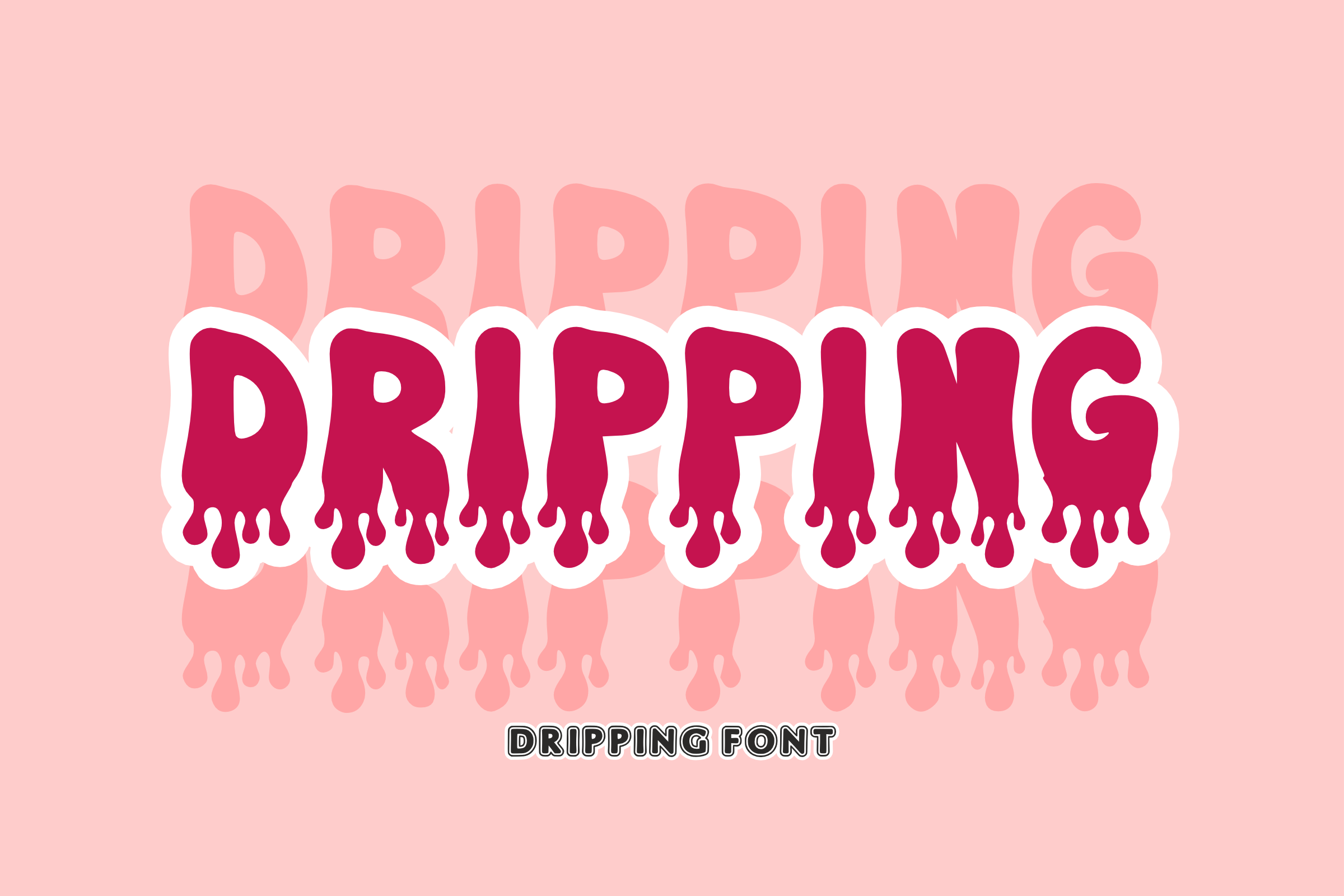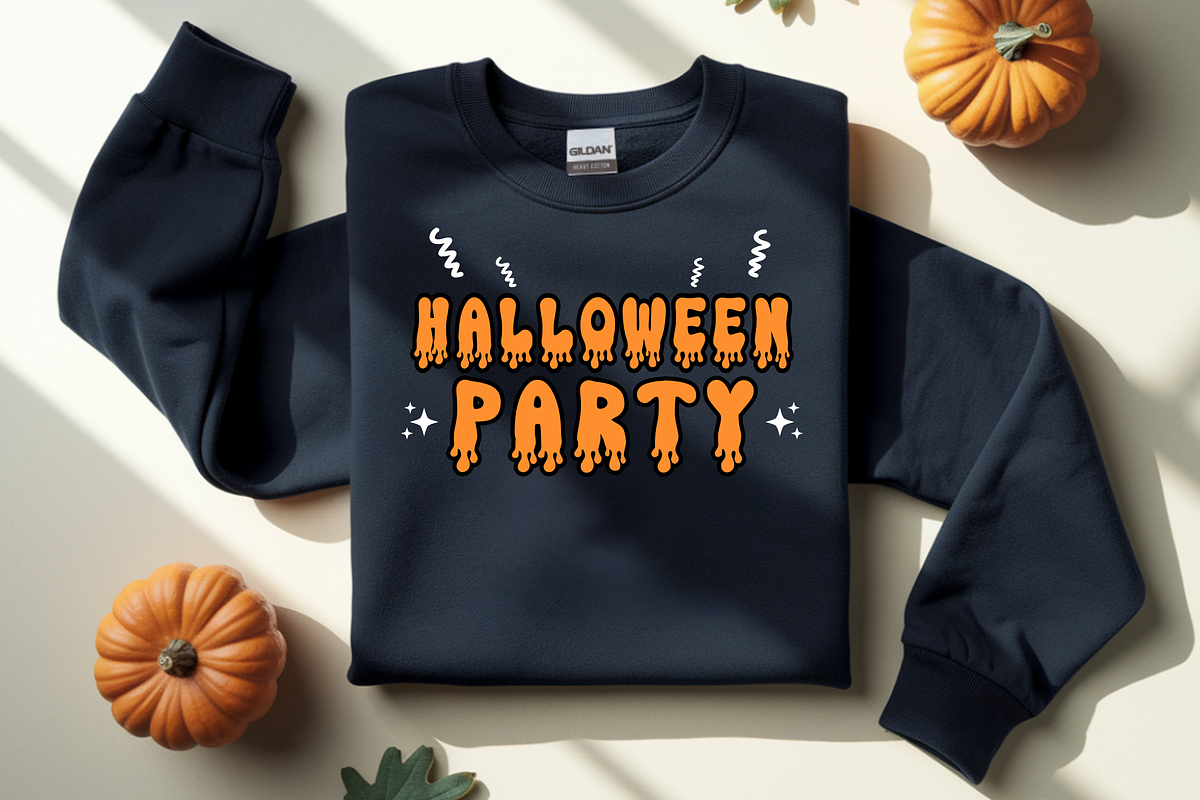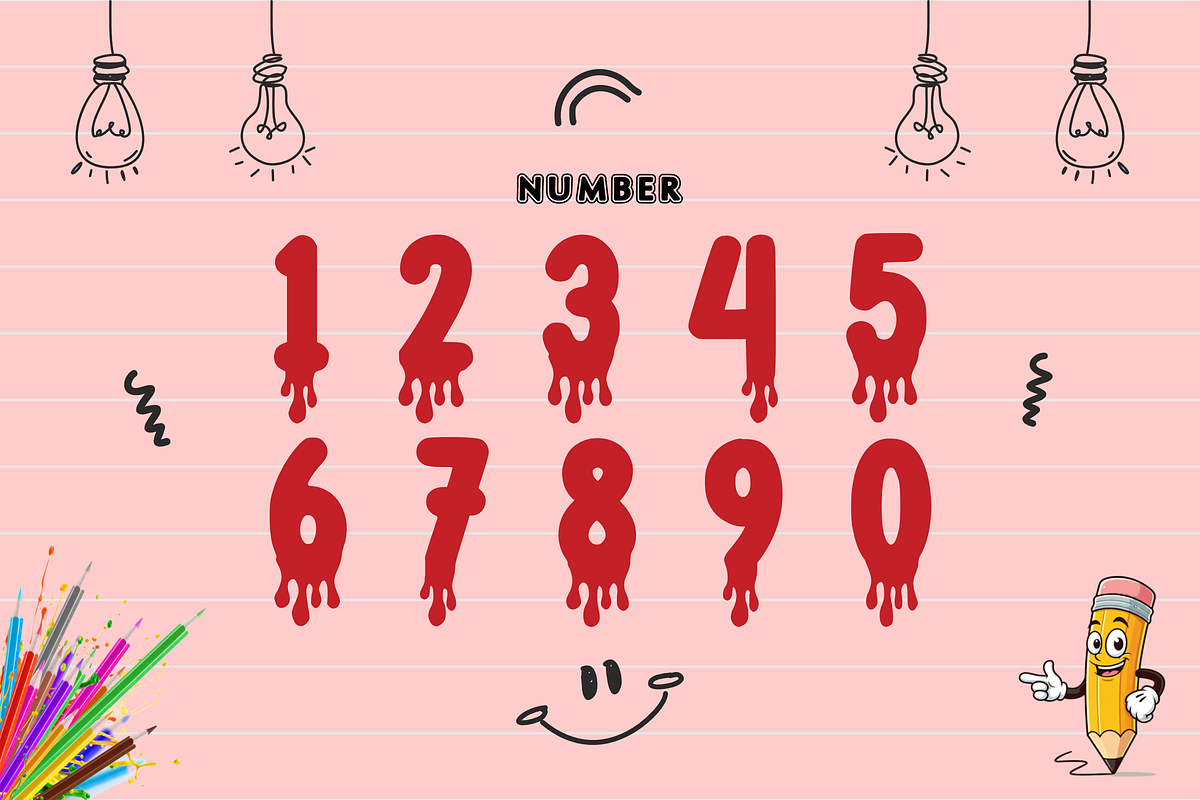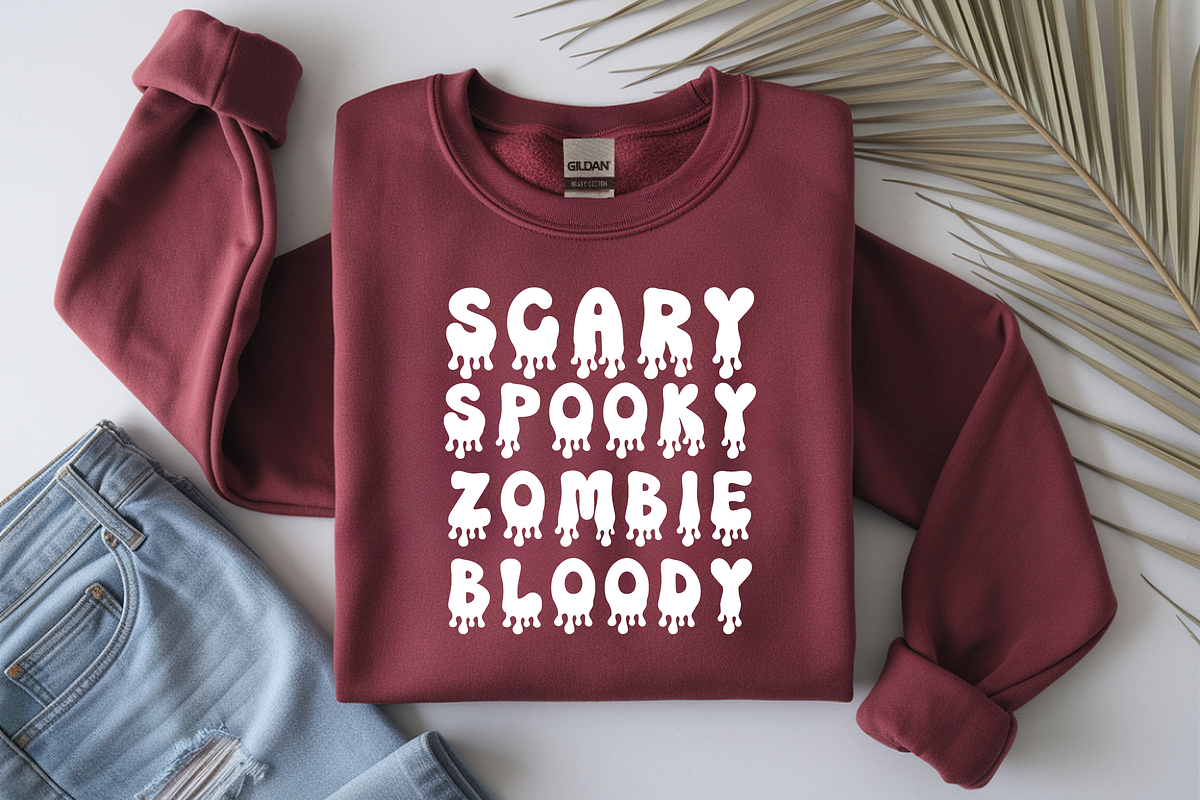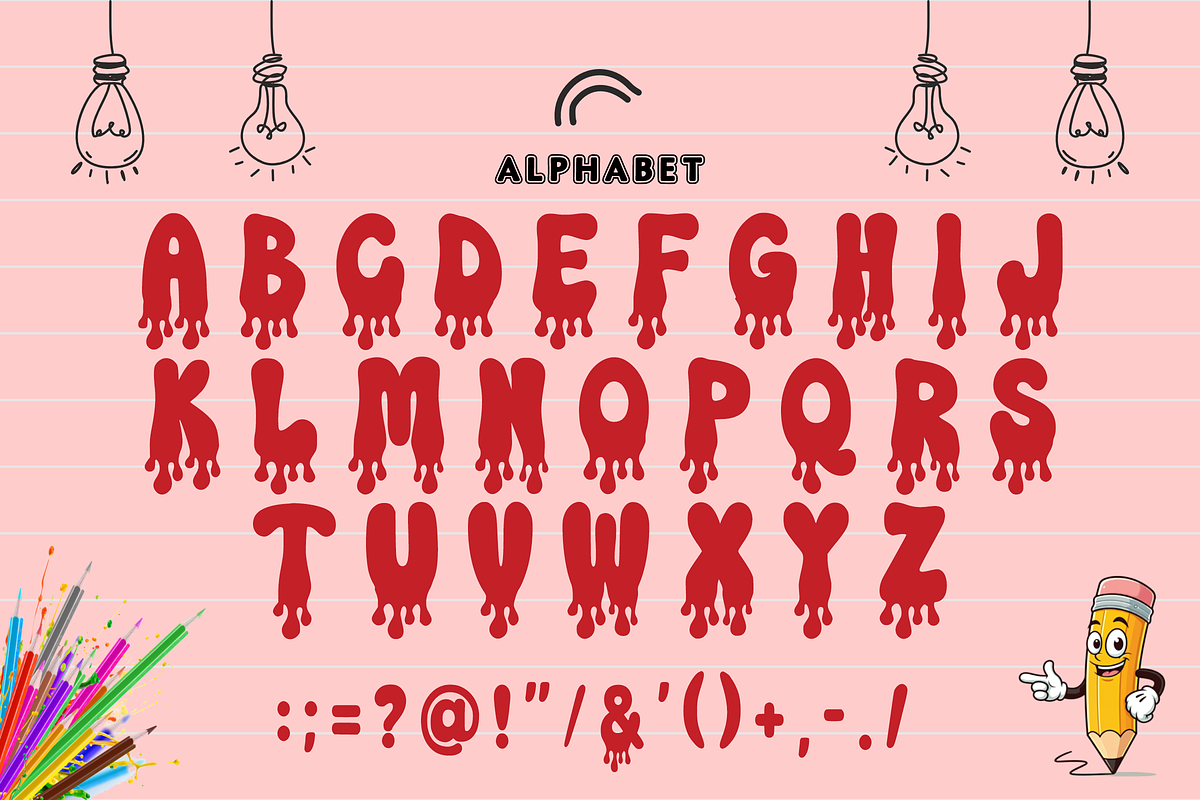
Dripping - Melting Slime Font
Bring a bold, liquid, and thrilling energy to your designs with Dripping! This unique display font features a chunky, melting slime aesthetic with realistic gooey drips trailing from every letterform. It’s the ultimate choice for street art, spooky themes, Halloween crafts, and high-impact custom branding that demands immediate attention.
Perfect for creative crafters, apparel designers, and trend-focused creators, Dripping seamlessly combines a playful horror vibe with excellent legibility. It cuts beautifully on digital cutting tools like Cricut and is fully optimized for a flawless look across all professional design software and print setups.
All-Caps Character Set (Chunky, melting uppercase letters with an eye-catching liquid drip style)
Numbers & Simple Punctuation (Essential, clean symbols included)
Halloween Party Decor, Spooky Invitations, & Horror Event Posters 🎃
Cricut, Silhouette, & DIY Slime Craft Sublimation Projects ✂️
Streetwear T-Shirts, Edgy Hoodies, Skate Brand Merch, & Tote Bags 👕
Custom Die-Cut Stickers, Bold Graffiti Logos, & Liquid Product Packaging 🎨
High-Impact YouTube Thumbnails, Gaming Graphics, & Creative Social Media 🎮